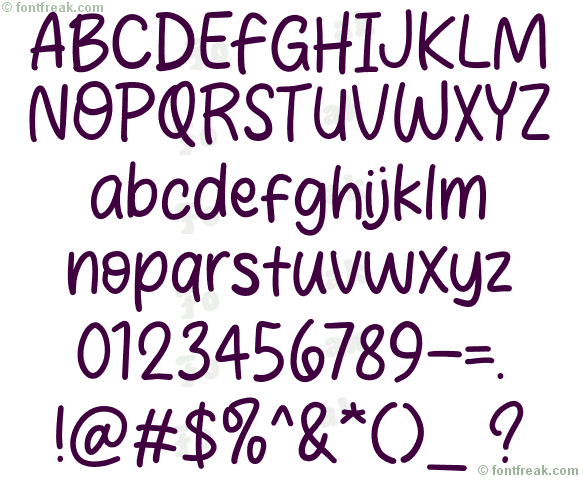
Street Donuts
Street Donuts by Syaf Rizal is a captivating display font that embodies a playful and casual aesthetic, making it perfect for a variety of creative projects. Its unique style combines rounded, whimsical letterforms with a slightly irregular baseline, evoking a sense of spontaneity and fun. The strokes are thick yet balanced, providing a bold presence without overwhelming the viewer. The spacing between the characters is well-considered, ensuring clarity while maintaining a lively flow that invites engagement.
This font is versatile, lending itself beautifully to several specific use cases. It is ideal for eye-catching restaurant menus, where its friendly vibe can attract food lovers. Street Donuts also shines in promotional materials for food festivals or street fairs, adding a touch of charm and excitement. Furthermore, it can be effectively used in social media graphics, making any post stand out with its vibrant personality. Wedding invitations that aim for a more relaxed, informal tone can also benefit from this font, creating a warm and welcoming atmosphere for guests.
What sets the Street Donuts font apart is its ability to convey joy and a sense of community. Whether you’re crafting a logo, designing a poster, or creating digital content, this font brings a unique flair that resonates with audiences. For those looking to add a touch of fun and creativity to their designs, the Street Donuts font free download is an excellent choice that promises to elevate any project.